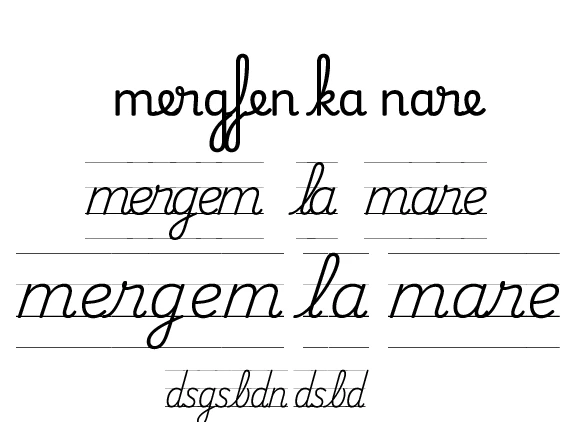
I'm keep having an error with cursive fonts from Adobe font in all the programs
I added this font named Playwrite CC Portugal to Adobe Suite, and it keeps displaying like this in every programs including Illustrator and InDesign:
It seems like all the other cursive fonts on my laptop is having a same problem. How do I solve this?
Hi, I had the exact same problem with Playwrite Việt Nam. After some infor digging and research, this one seems to work for me:
Changing the kerning from "Optical" to "Metrics". After that, delete the old text box, then create a new one and start typing into it.
Cursive fonts can sometimes behave differently across apps, especially if the font isn’t fully synced or activated. I’d try deactivating and reactivating the font, then restart the affected programs. If only certain cursive fonts have the problem, testing another font can also help narrow down whether it’s a font-specific issue.
Had this same issue with a different cursive font in Photoshop, fixed it a different way than the pinned response. Adding this reply for anyone else that may have the same problem!
When you have the type tool selected, right click the “T” in the top left of your screen and hit “reset tool.” After doing this, the font I was using started connecting in new text boxes.
Adobe Illustrator: Navigate to Preferences > Type, check the "Show Indic Options" box, and close preferences. Then open the Paragraph Panel and select "Middle Eastern Composer" from the contextual menu.
I tried using the Playwrite fonts, but none of them work—it’s incredibly frustrating. I don’t see the point of including them in the font library if they behave this way. Even after switching to Metrics and adjusting the kerning, the spacing is still completely off. On the second line, the letter spacing is reduced by 66, and is still looking off.
I am having the same issue. It works in Libbre Office, but not in Illustrator. How do I fix this?
I looked into this typeface further. I'm seeing the same issues with the fonts as the original poster in Adobe Illustrator. The fonts don't render perfectly in a couple other rival applications. The default characters are different in CorelDRAW. The fonts seem to work most predictably in Affinity Designer, but still not glitch-free. Playwright CC Portugal has a pretty complex character set with a lot of alternative glyphs. It looks like the various character sets are getting jumbled in different ways in these different applications.
I did some searching and found a bit of a solution for Adobe Illustrator at the Github TypeTogether page for Playwrite. First you have to open Preferences, go to the Type section and then check the "Show Indic Options" box and then close Preferences. Then open the Paragraph panel and select "Middle Eastern Composer" from the flyout menu. Doing that will change the letters to a properly connected script.
I haven't tried to download the version of Playwrite Portugal that's hosted at Google Fonts yet. It's a variable font file. There is a LOT of different versions of Playwrite at the Google Fonts site. Later edit: I downloaded the variable font from the Google Fonts web site; it behaves the same way as the version of Playwrite Portugal at Adobe Fonts.